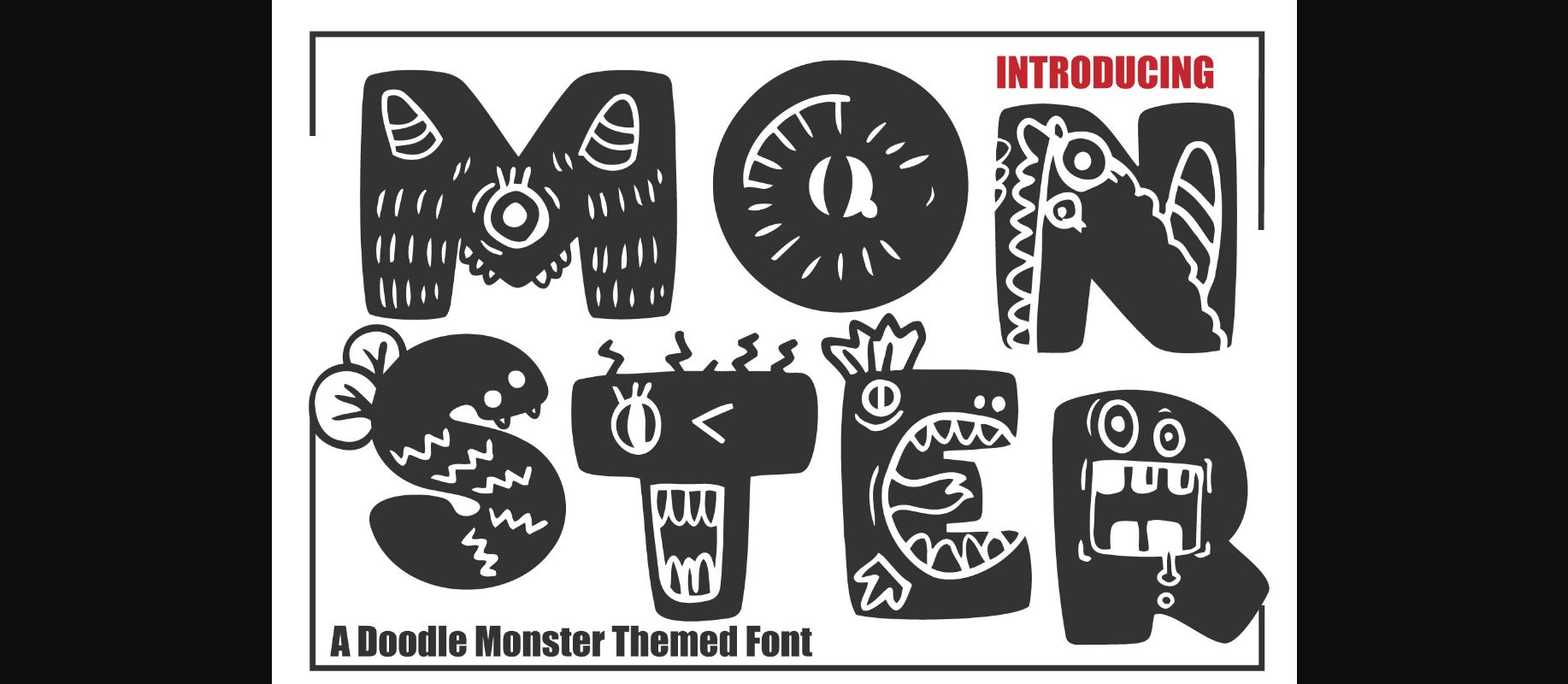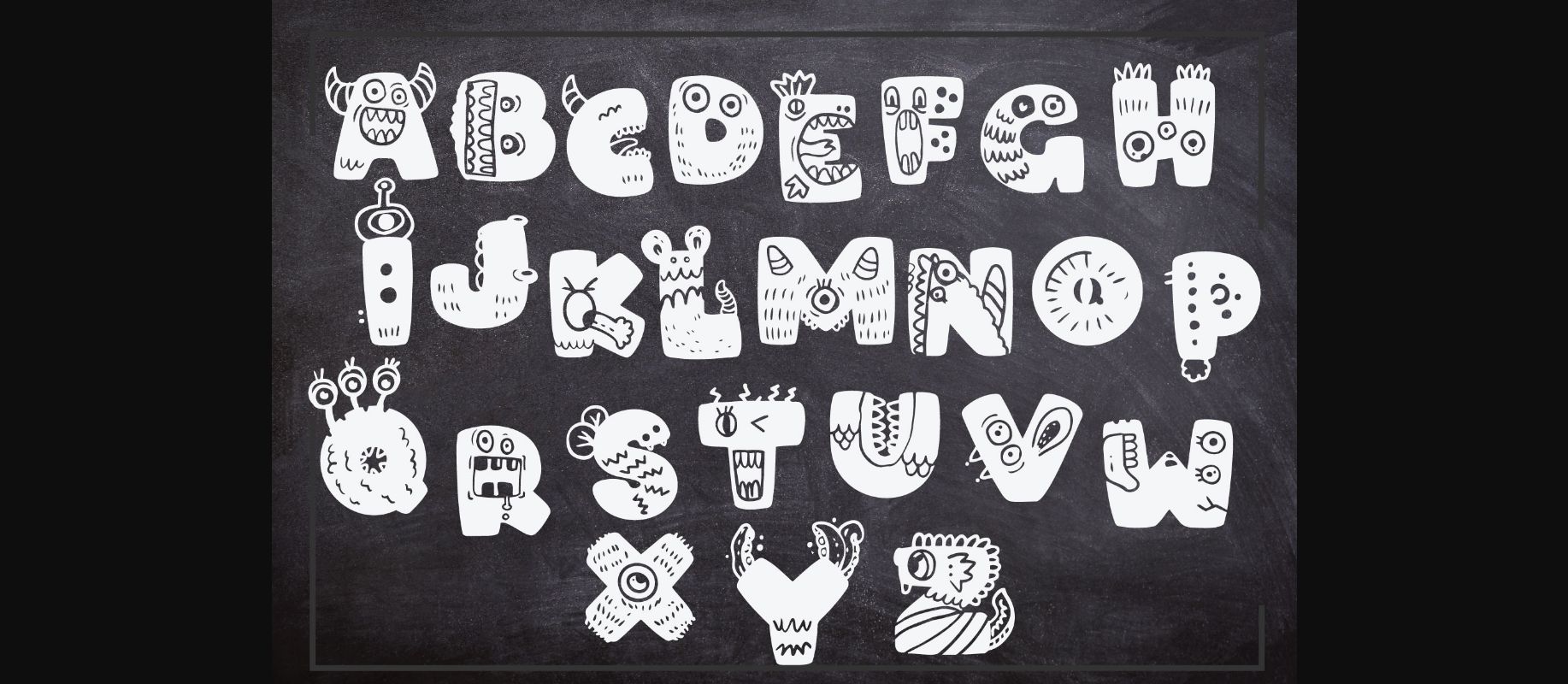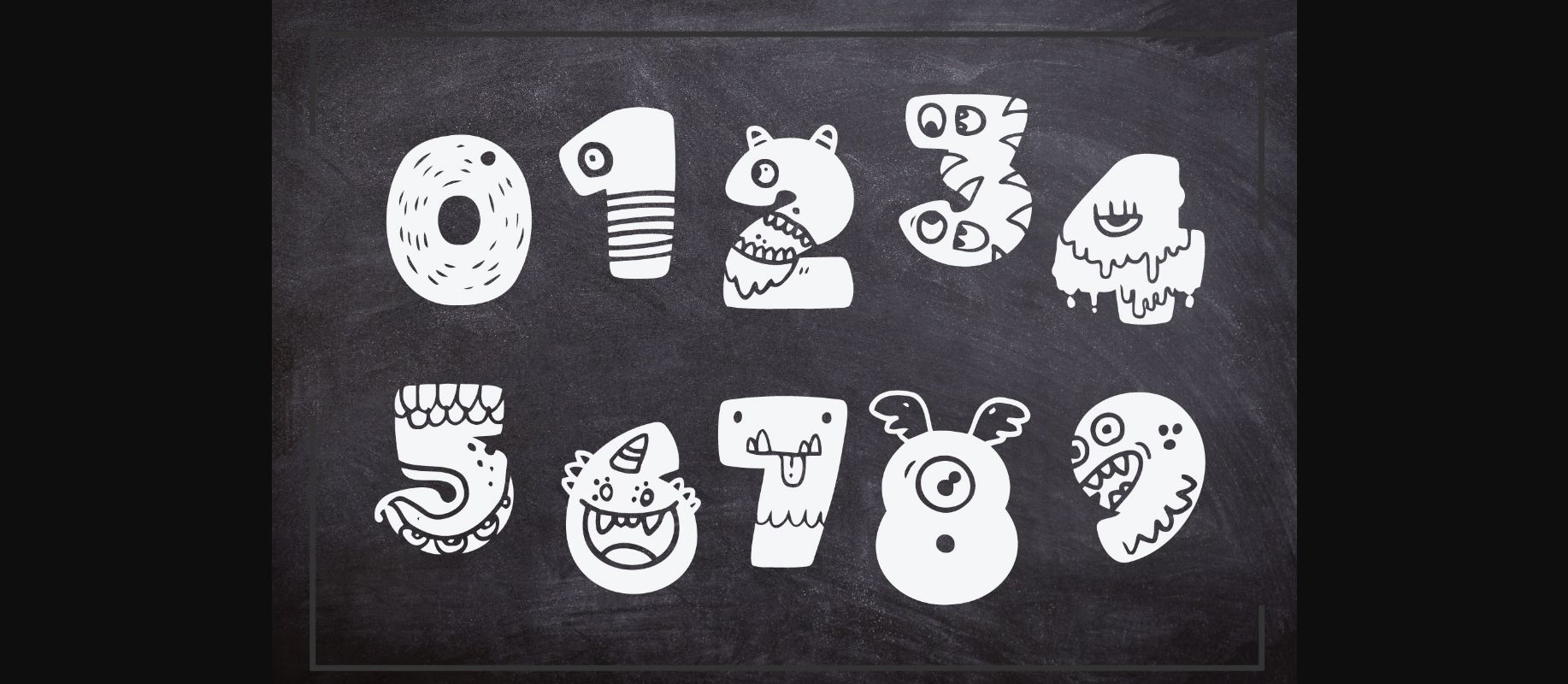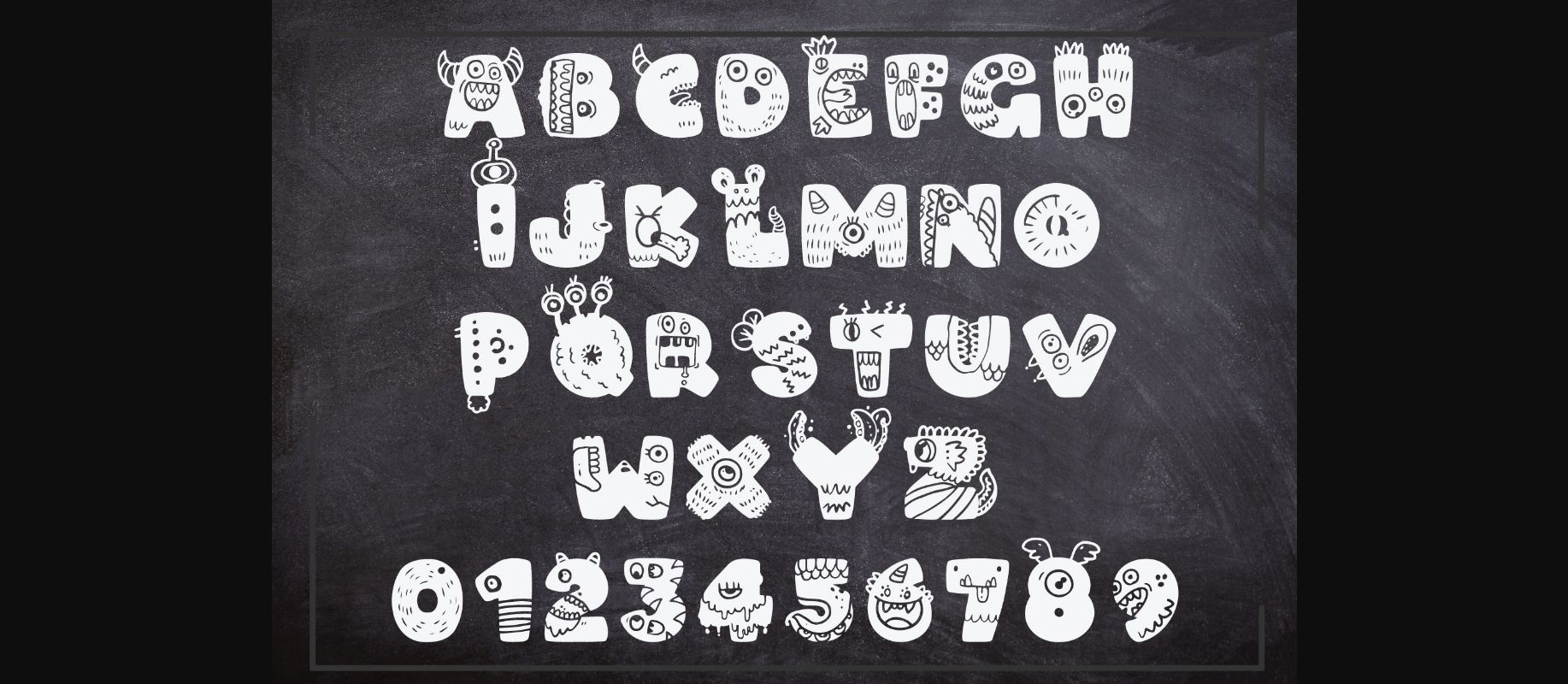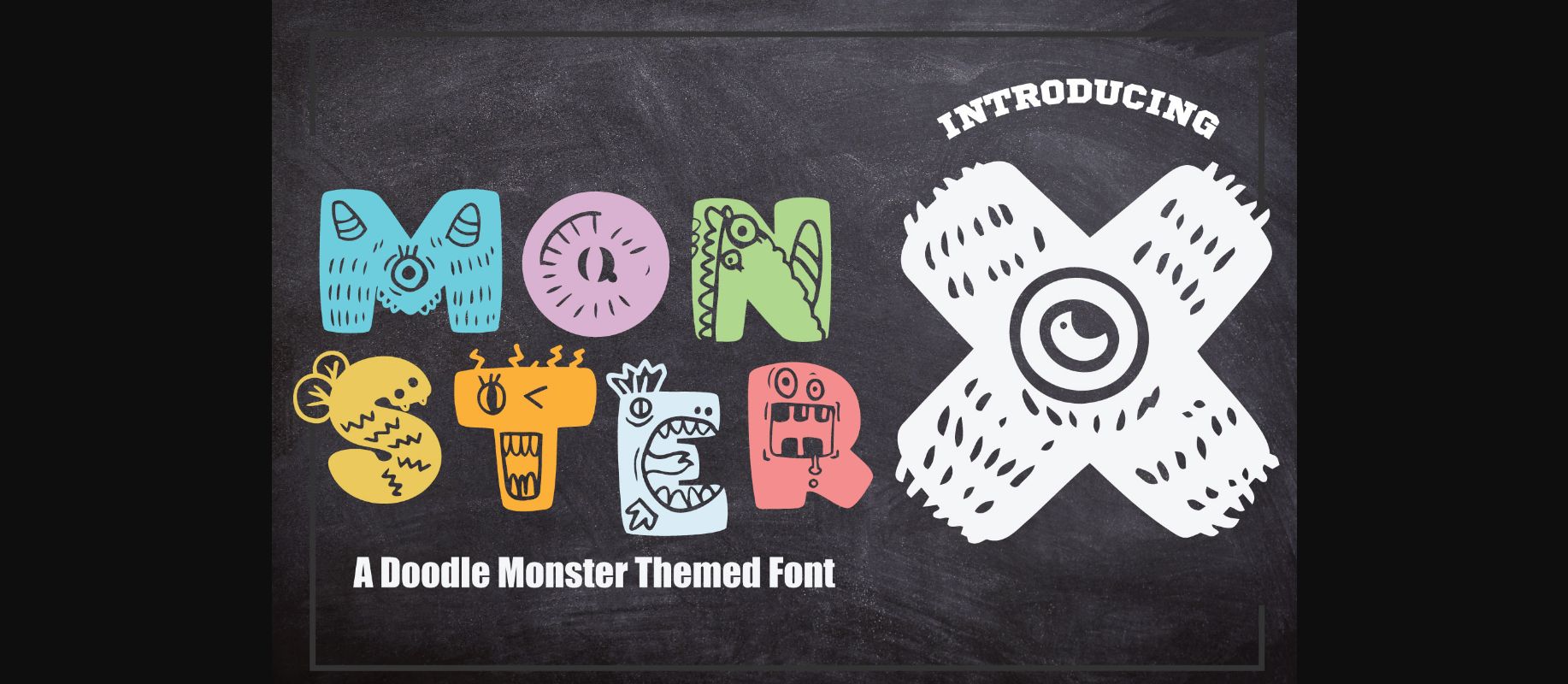
Monster Font
About Monster Font
Monster is a cool, quirky and thick lettered decorative font, featuring fun little monsters as ornaments. Whether you use it for cartoon related designs, children games or just any creation that requires a lovely touch, this font will be an amazing choice.